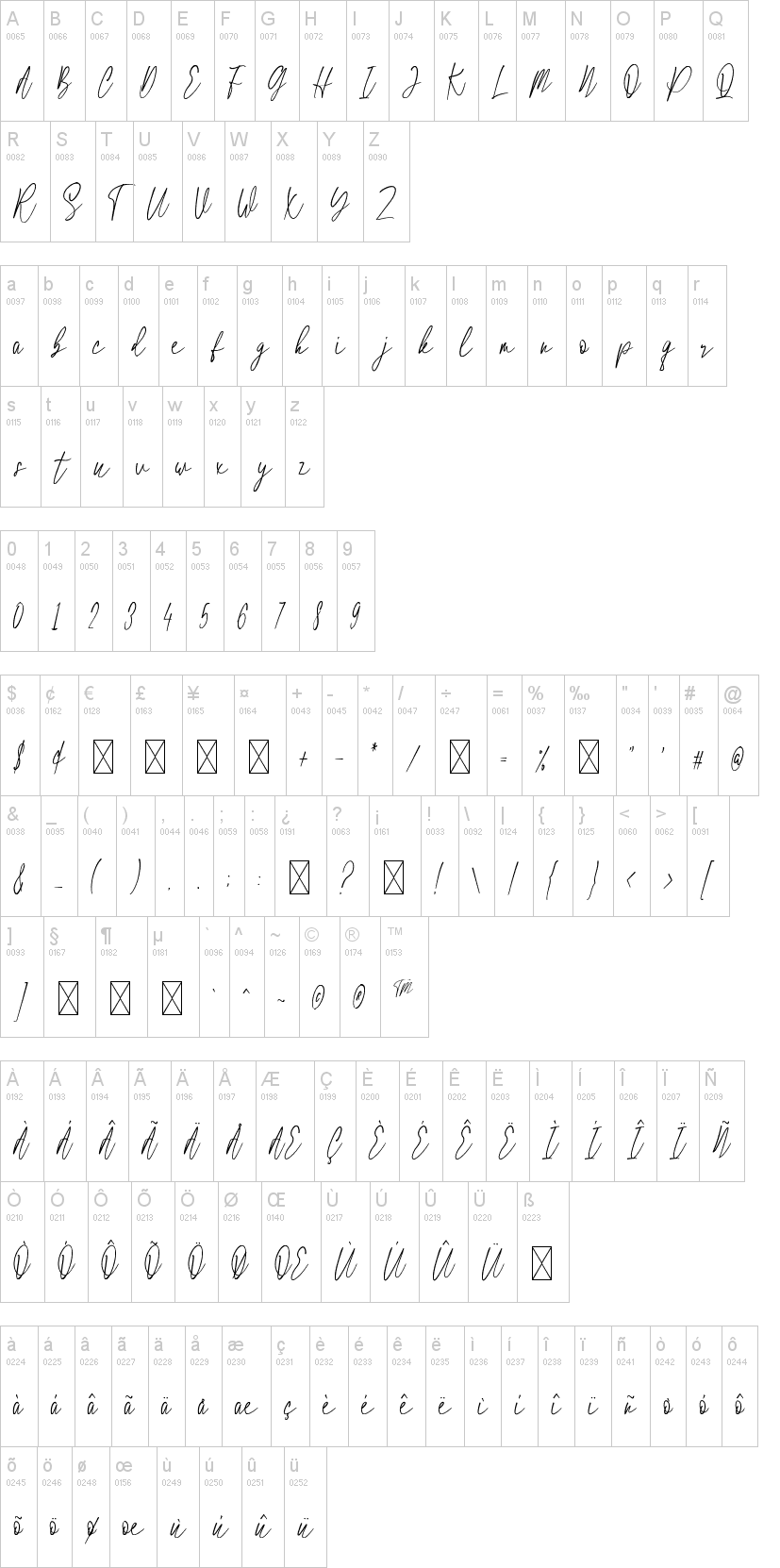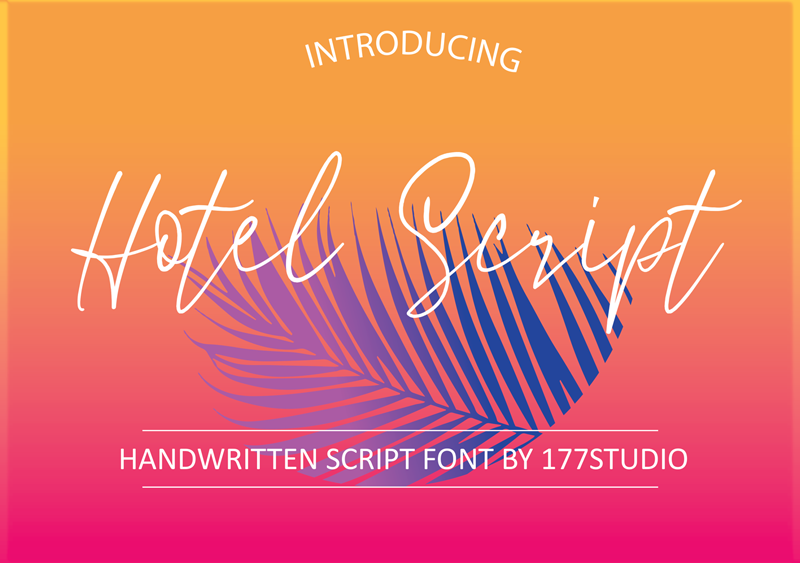
Note of the authorHotel Script Font is a beautiful signature script font which personal touch of natural movement. Hotel Script is perfect for branding projects, Logo, Wedding designs, Social media posts, Advertisements, product packaging, Product designs, Label, Photography, Watermark, invitation, stationery and any projects that need handwriting taste.